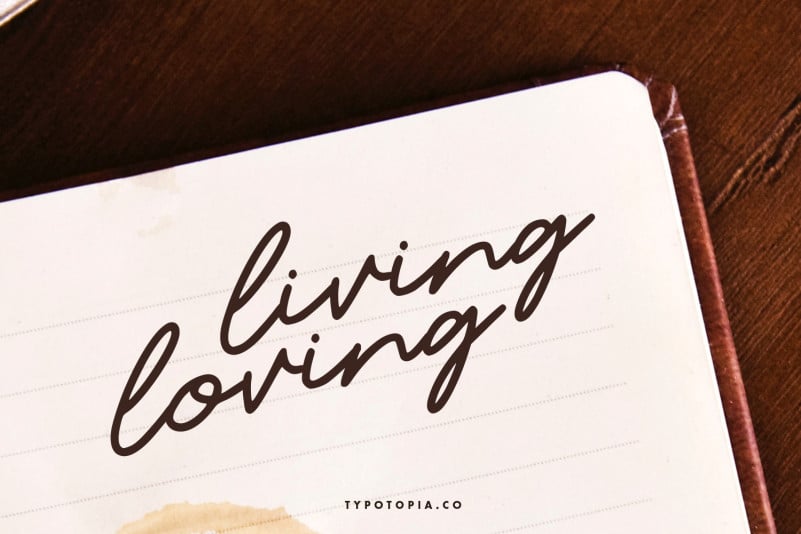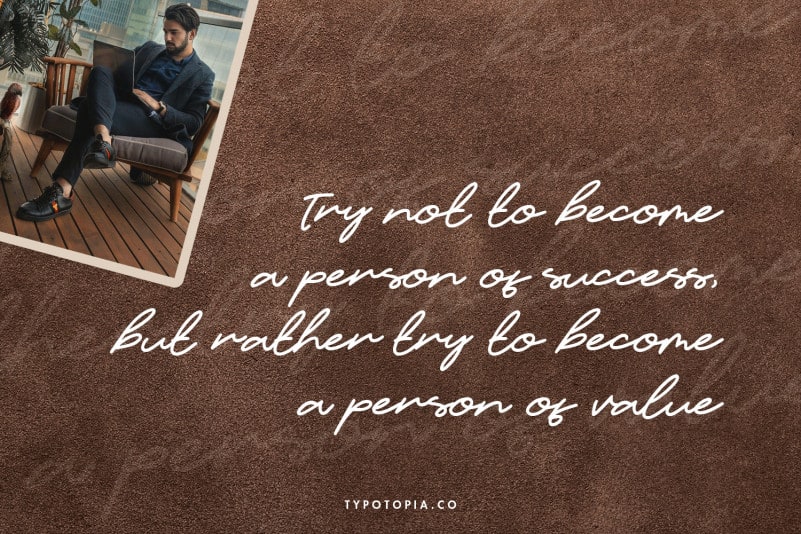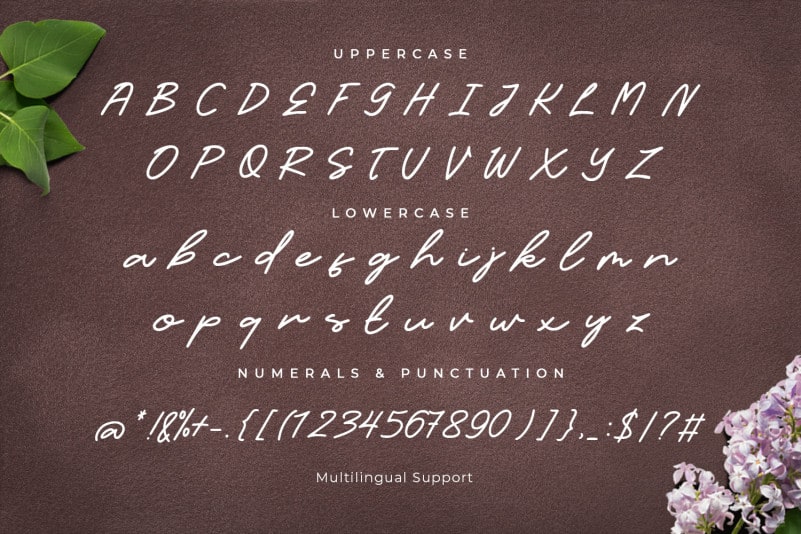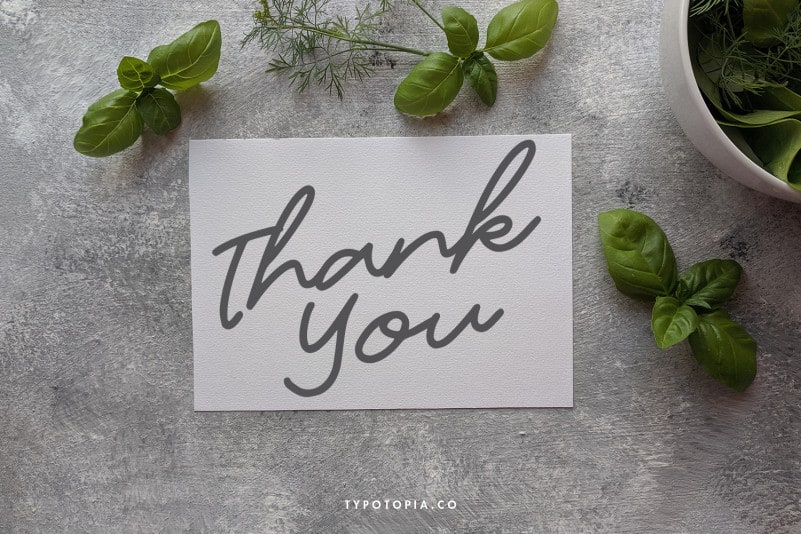
Candelia Handwritten Font
Introducing Candelia Handwritten Font is a beautiful Handwritten Fonts. This type of font perfectly made to be applied especially for logos, fashion, stationery, magazines, menus, books, invitations, greeting cards, packaging, labels, apparel, marketing, business cards, etc.